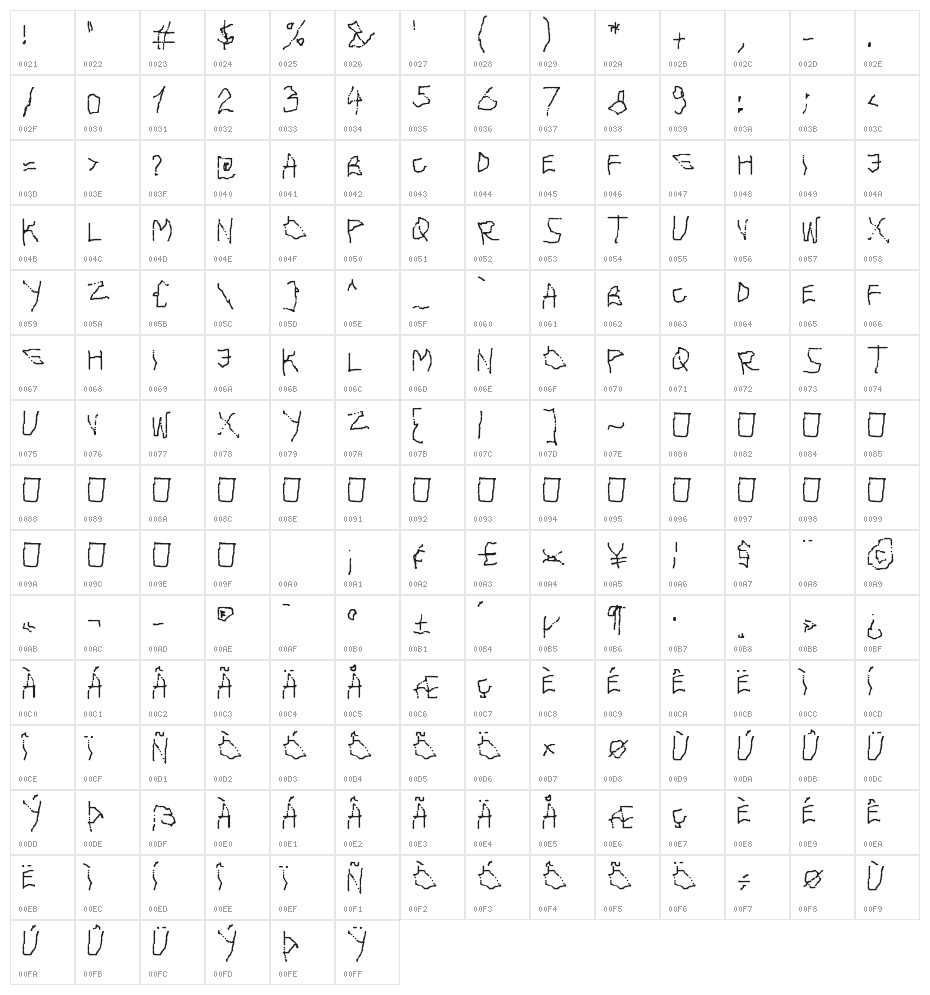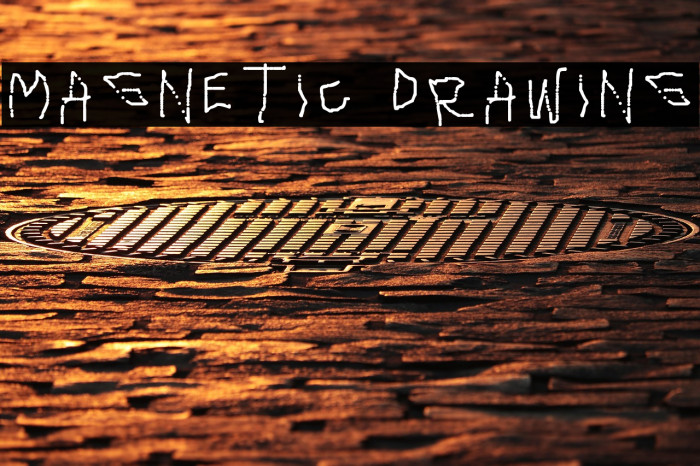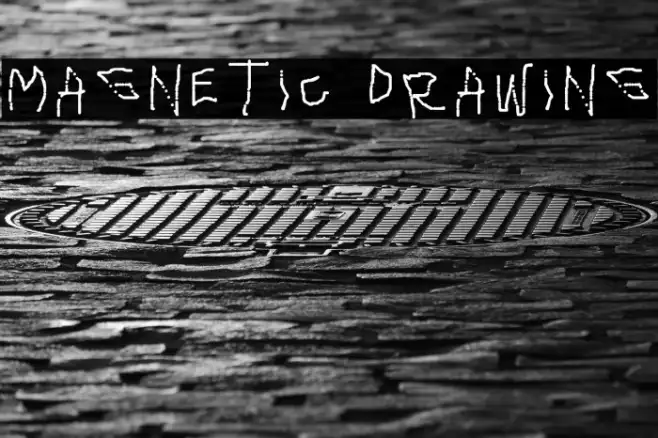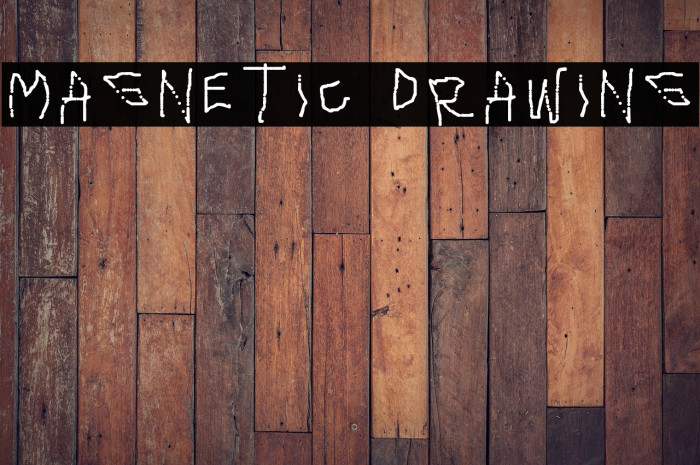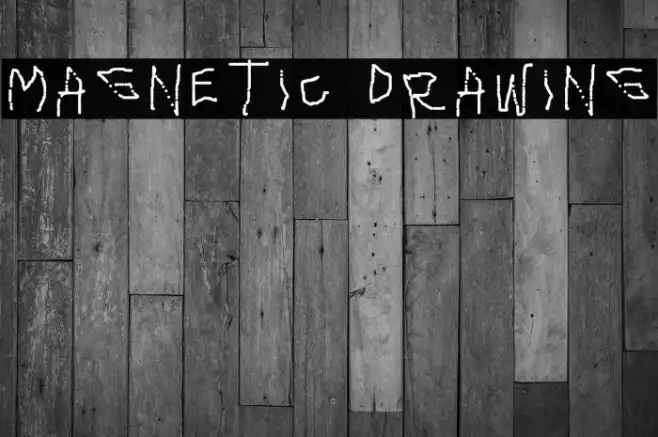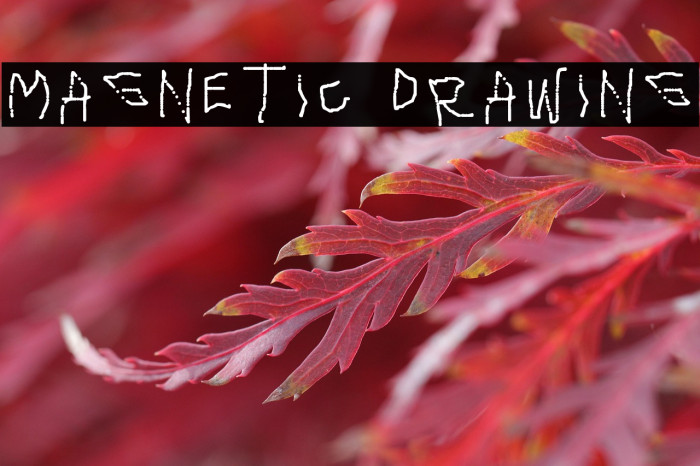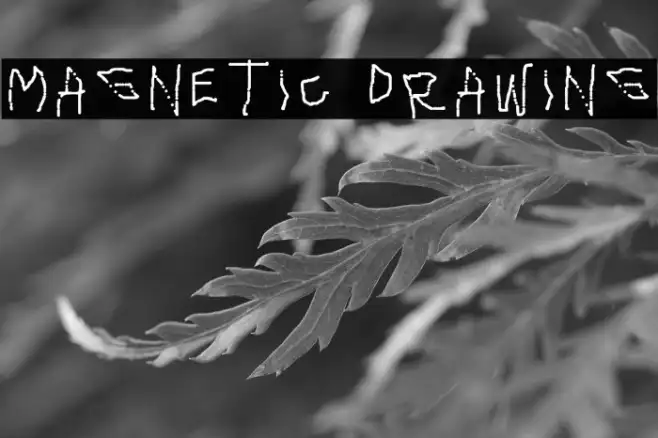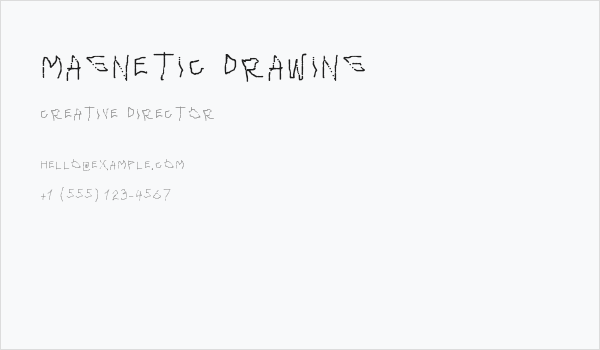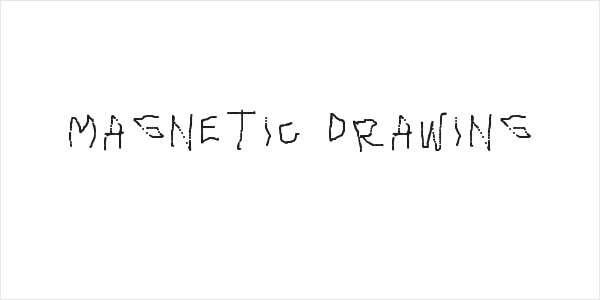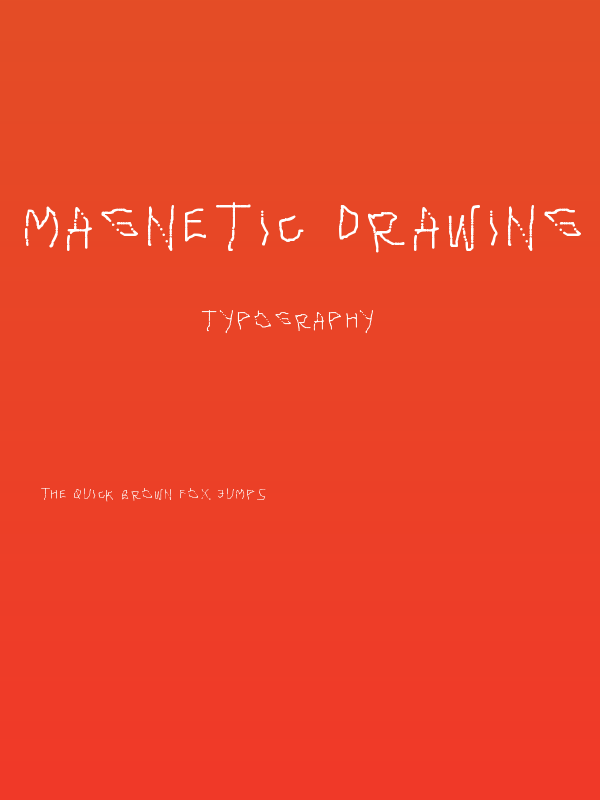
Magnetic Drawing Font
Magnetic Drawing Description
This font features a playful and whimsical style, reminiscent of the lines drawn on a magnetic drawing board. The characters are formed with a series of connected dots, giving them a hand-drawn appearance. The uppercase and lowercase letters maintain a consistent style, with irregular and slightly jagged edges that add to the informal and casual feel. The numbers and special characters follow the same design principle, ensuring a cohesive look throughout. This font's unique aesthetic makes it stand out, offering a sense of nostalgia and creativity.
| Overall Style | Playful, Whimsical, Hand-drawn |
| Use Case | Headlines, Creative projects, Informal settings |
| Proposed Projects | Ideal for children's books, playful branding, creative posters, and educational materials. |